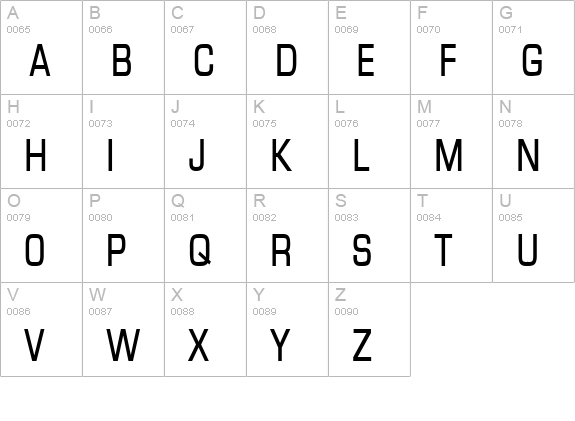
Eurasia Condensed Bold is a strong, high-contrast, condensed-width variant in the Eurasia typeface family \xE2\x80\x94 well suited to headlines, attention-grabbing titles, and strong calls-to-action.
Eurasia Condensed Bold font is a striking and versatile typeface that exudes a modern and bold aesthetic. With its condensed design and strong, impactful strokes, this font is perfect for headlines, titles, and branding projects that demand attention. The clean and minimalistic style of Eurasia Condensed Bold adds a touch of sophistication to any design. Best of all, Eurasia Condensed Bold is available for free download at FontsMarket.com. Whether you're a designer looking to elevate your projects or a business owner seeking a fresh look for your brand, this font is a valuable addition to your toolkit. Download Eurasia Condensed Bold today and make a bold statement with your typography.